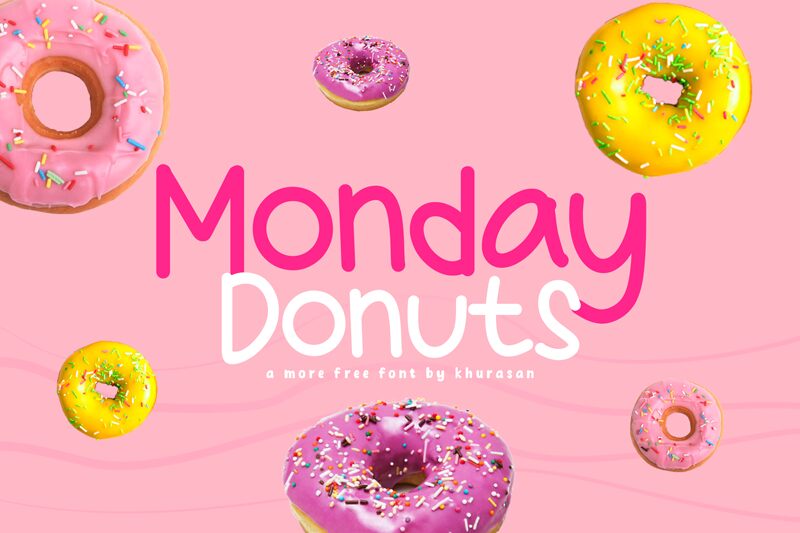
Monday Donuts, a playful handwritten font by Khurasan, adds a modern and cute touch to your designs.
Its semi-light weight gives it an airy feel that works well on posters, logos, magazines, and book covers. Use it to create eye-catching banners and captivating social media posts that will make your content pop. Monday Donuts is versatile and can be matched with a wide range of projects, from children's illustrations to food packaging designs. Let this delightful font elevate your creative ideas to new levels of charm and appeal.
Monday Donuts